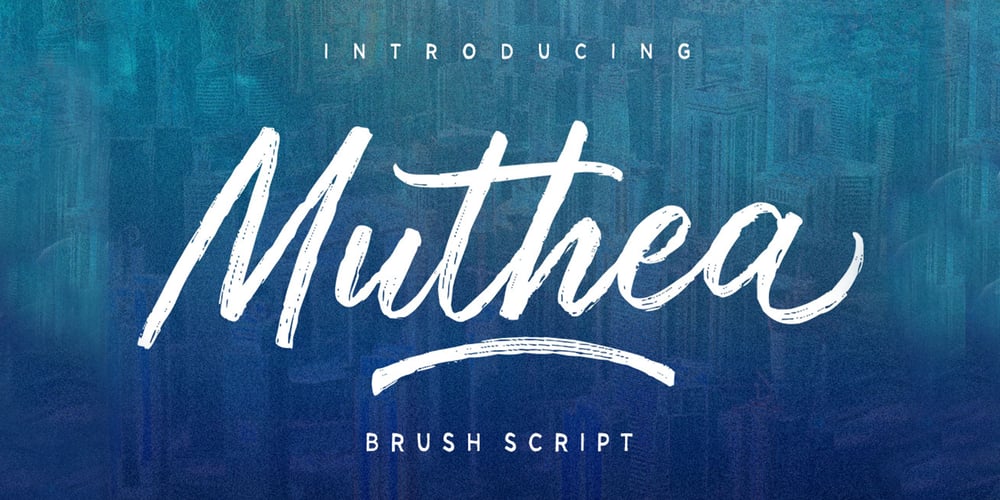
Muthea
Muthea font
Muthea Font Family was designed by Hafis Hidayat and published by HafisHidayat. Muthea contains 2 styles and family package options. Muthea is a very interesting, brushed texture font and includes several ligatures, alternatives and extra swashes. It is contemporary approach to design, with a natural and irregular base lines. It is suitable for use in title designs, clothing, logos, greeting cards, t-shirts, packaging designs, invitations, book titles, stationery designs, quotes, branding, posters and more.Muthea includes a complete set of uppercase and lowercase letters, as well as multi-language support, numbers, punctuation, ligatures, and alternatives.Thank you very much for buying and letting me know if you have any questions.